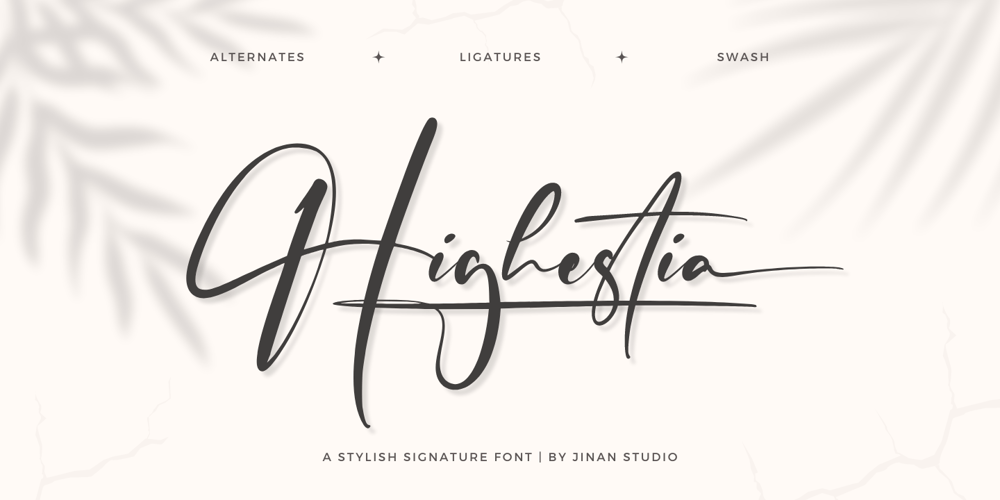
Highestia
Highestia font
Highestia Font Family was designed by Ainun Jinan and published by Jinan Studio. Highestia contains 1 styles and family package options. Highestia! a stylish signature font is an excellent choice for projects where a sense of elegance, personalization, and creativity is desired. Whether it’s used for branding, logos, invitations, or any other design work, this font is designed to leave a lasting impression with its beautiful and refined characteristics.Features A set of uppercase and lowercase glyphs Number, symbol, and punctuation Multilingual Support Alternates Ligatures Swash Thank you a million times for buying and using this font for your projects. Enjoy this font and happy creating!Jinan Studio